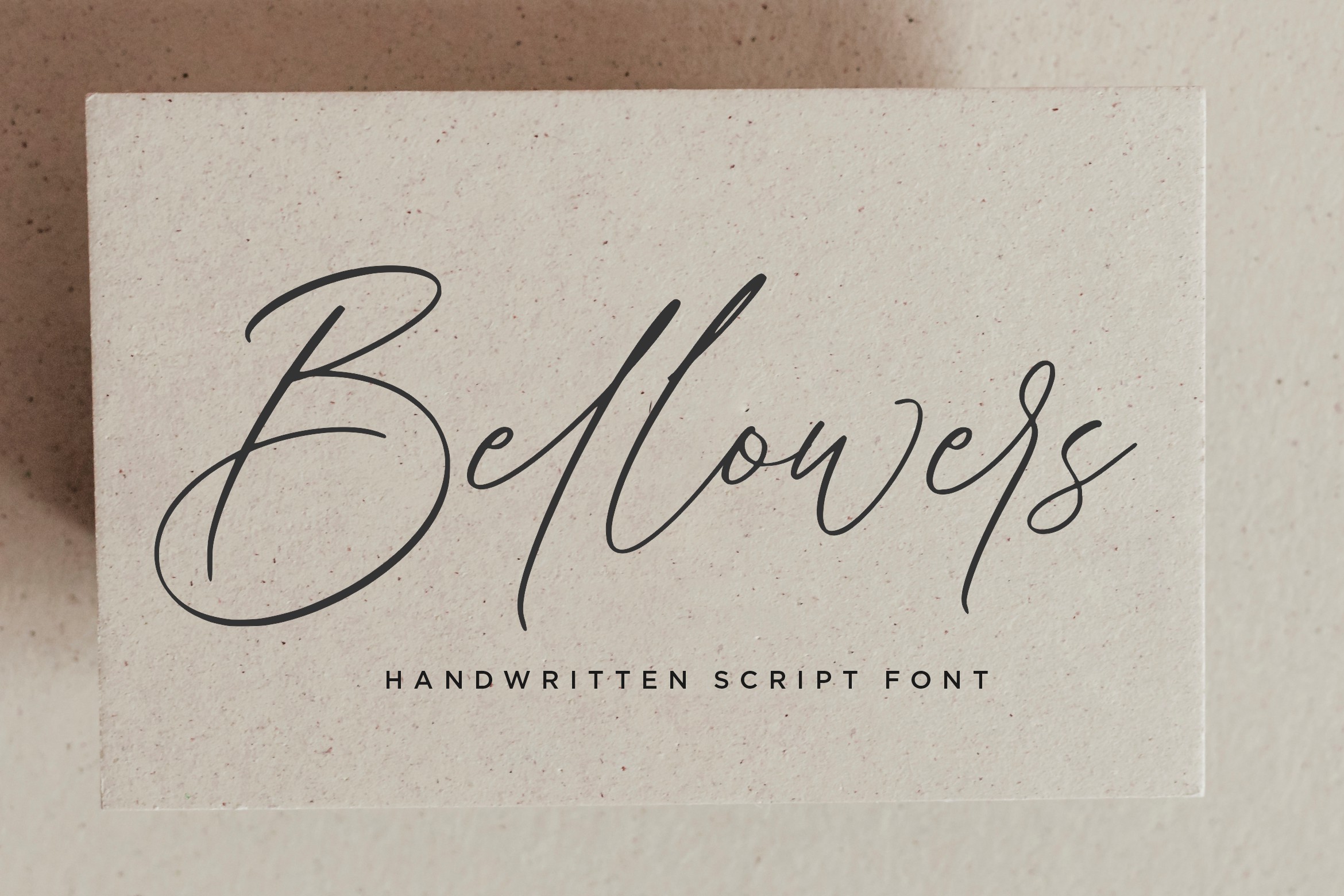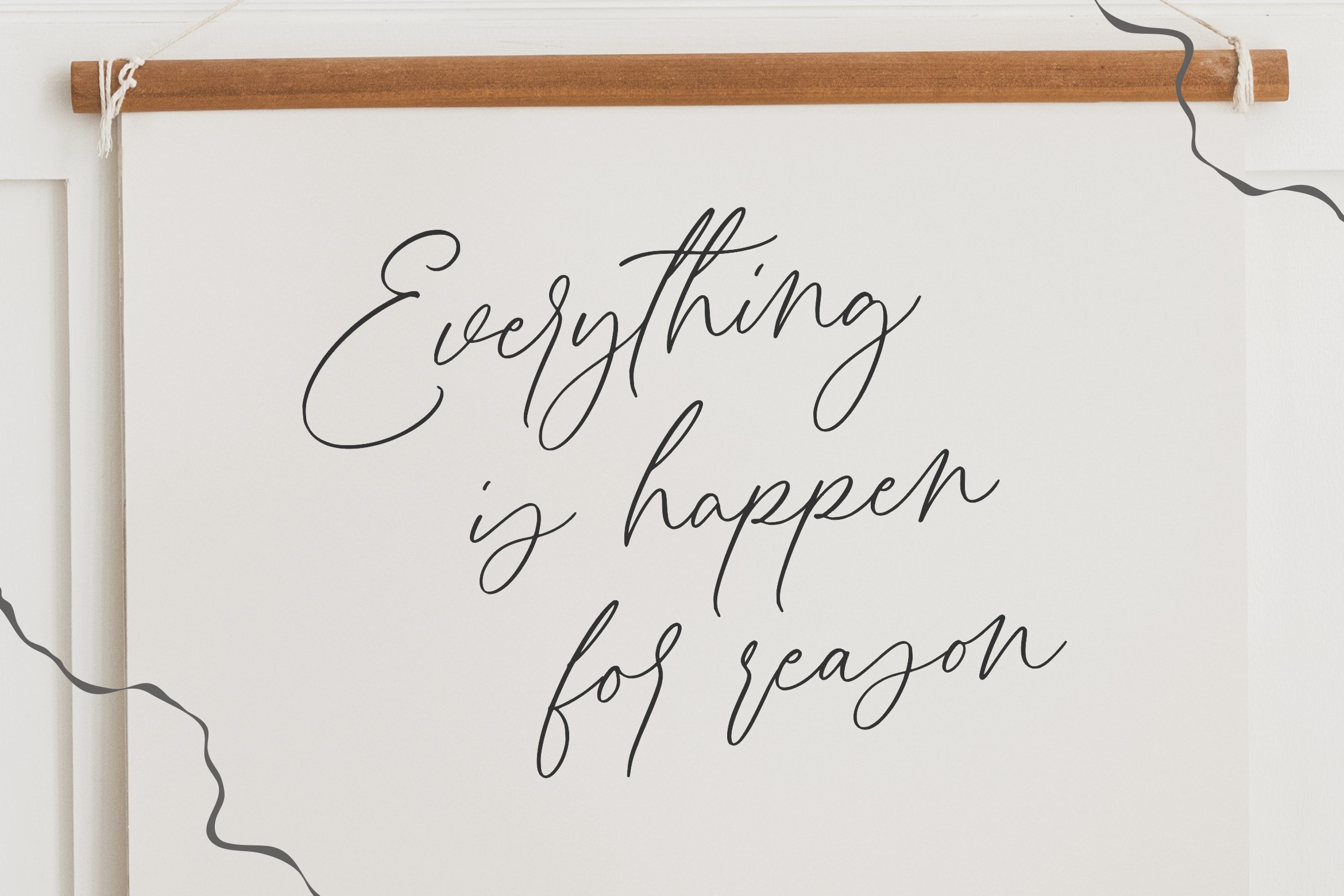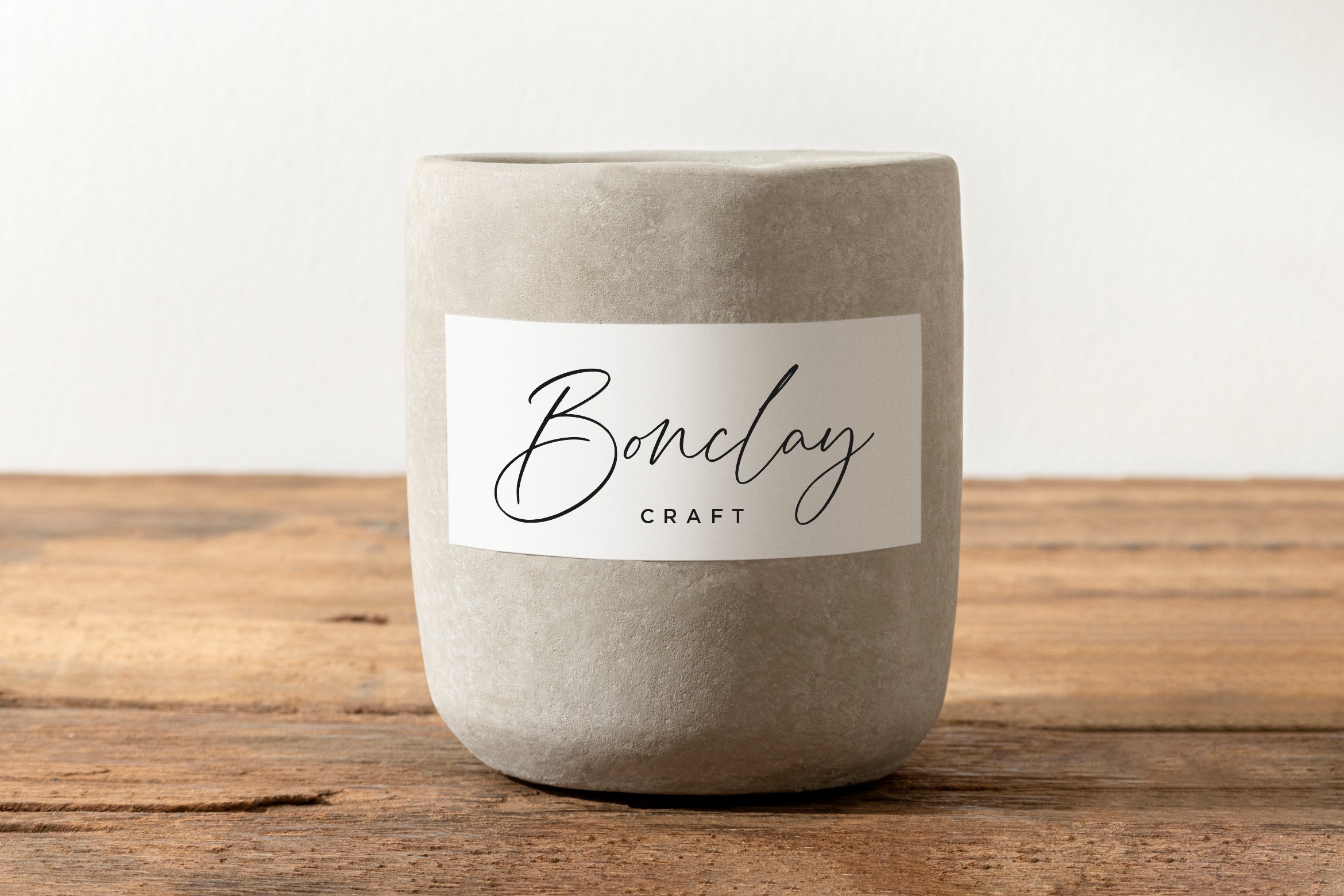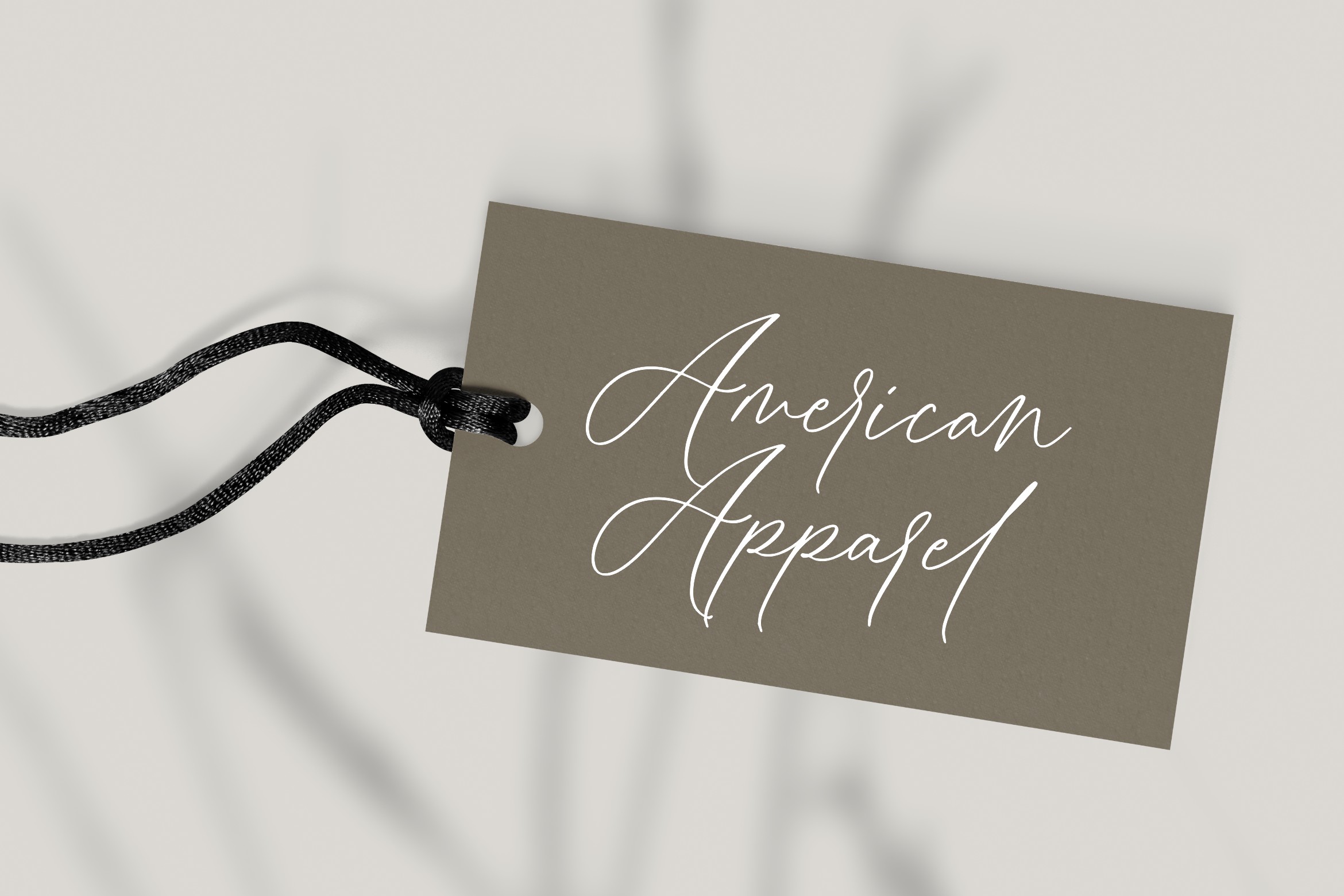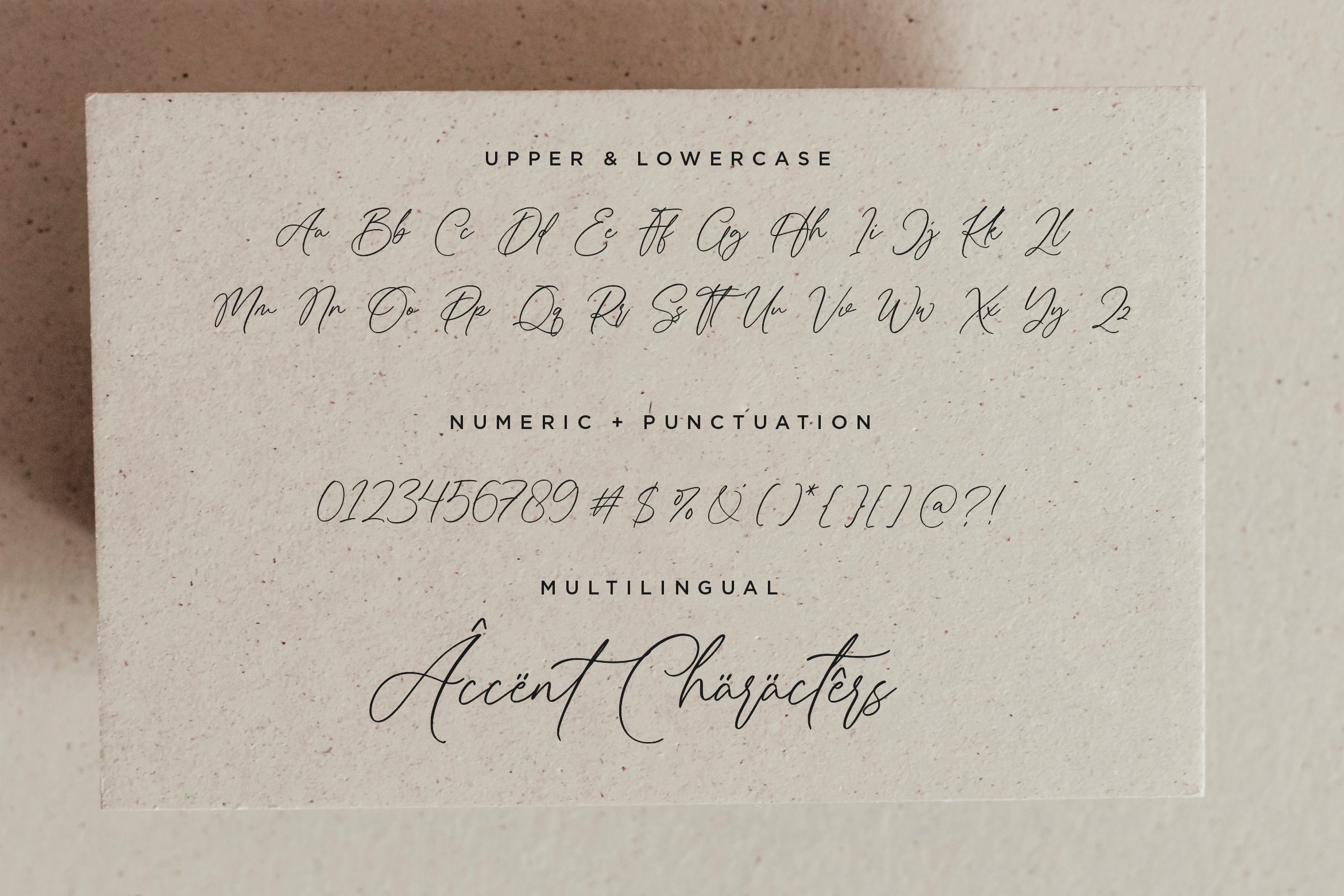
Bellowers Font
Bellowers Script Font is perfect for product packaging, branding project, magazine, social media, weddings, or just used to express words above the background. This font is PUA encoded, which means you can access all of the glyphs and swashes with ease!